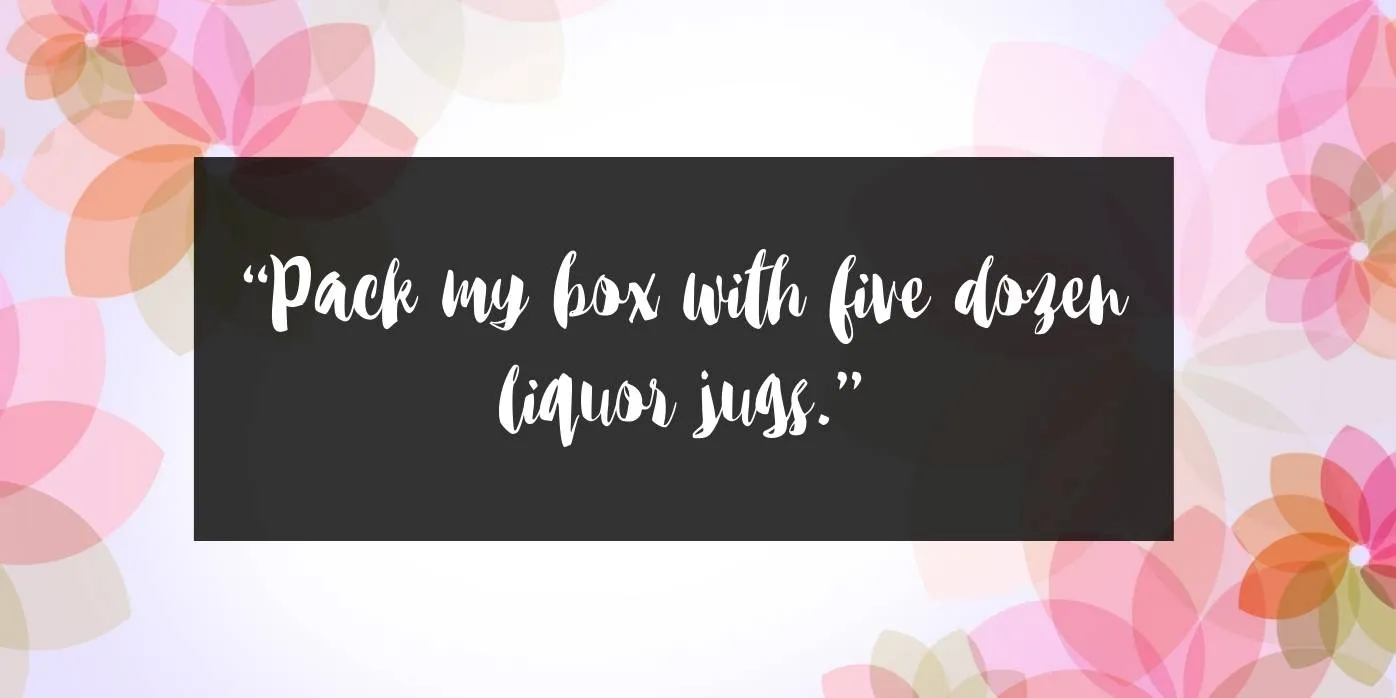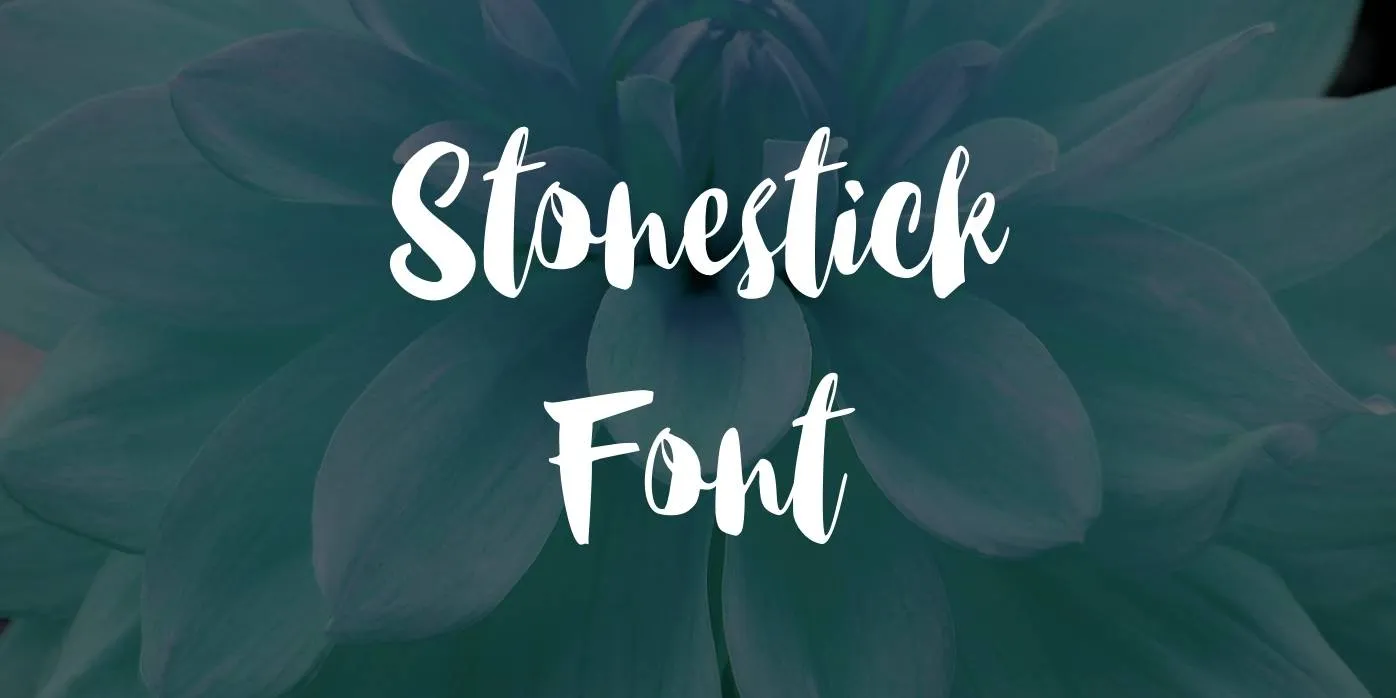
Stonestick Font
In this post, we present a new stylish typeface that is known by the name Stonestick Font. This stylish typeface belongs to the script typeface. This typeface was developed by JROH Creative. It is a perfect font for headings and logos.
It has both clean and imperfect versions, which can be used to add a creative touch to your design projects. You can also use its similar have heart font for various designs. This stylish font is one of the most popular typefaces in recent times, loved by designers for its unique style and versatility. This versatile font features both clean and imperfect versions, allowing you to choose between different looks depending on your project needs.
It consists of three amazing styles. Its powerful letters and clean, minimalist style make Stonestick Font perfect for use in logos and headings. Whether you’re looking to add a unique style to your next design project or just want to experiment with different fonts, Stonestick is sure to be a great choice for your designs.